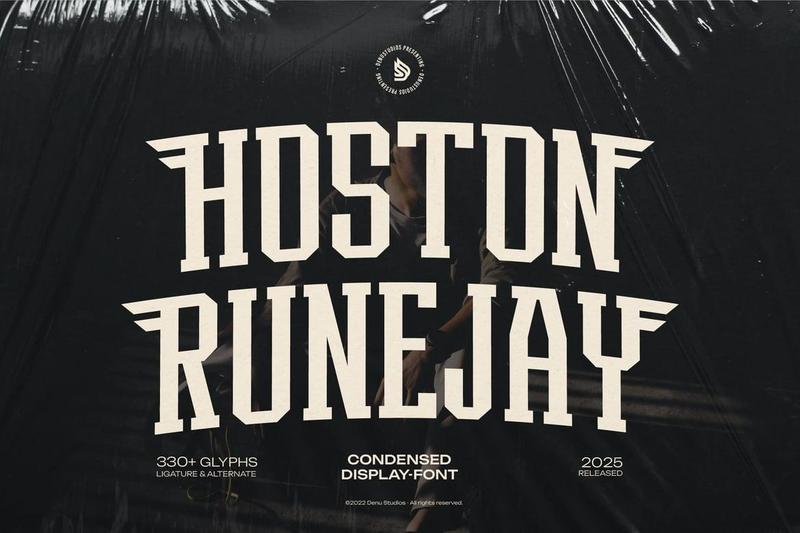
Hoston Runejay | Condensed Display Font JGS38GJ
The Hoston Runejay font is designed to deliver a strong, versatile visual character, balancing aesthetics and readability. Every detail is carefully crafted to ensure a clear, consistent, and visually appealing result across a wide range of design needs.
With well-structured letter proportions and support for features such as alternate characters and ligatures, this font allows for greater creative exploration. The final result is dynamic, distinctive, and professional, making it adaptable to a range of design styles.
Alternate and Ligature